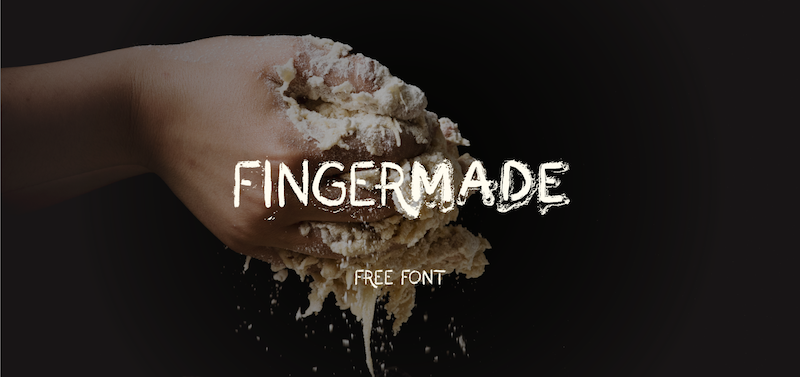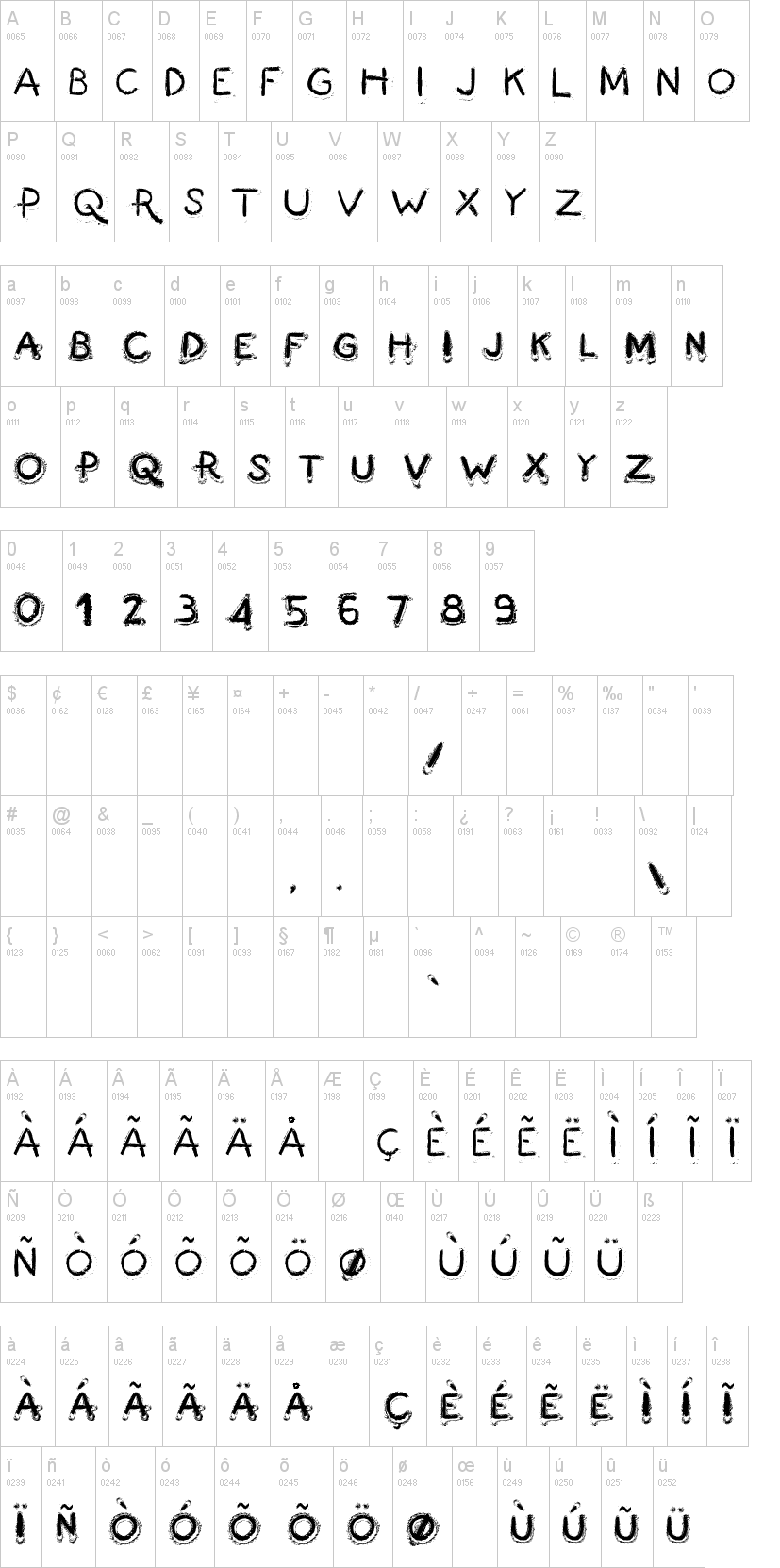
A new entirely handcrafted font.
Actually designed with anything but a finger.
We have fingers.
We are designer.
especially for DELICIOUS RECEIPTS (OR MESSAGES IN THE SAND).